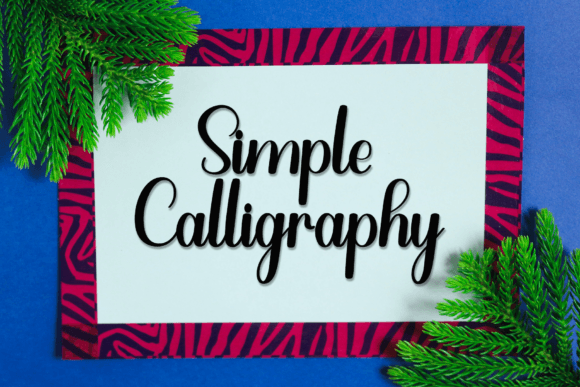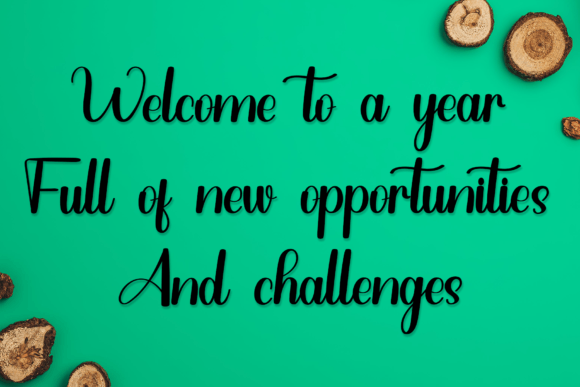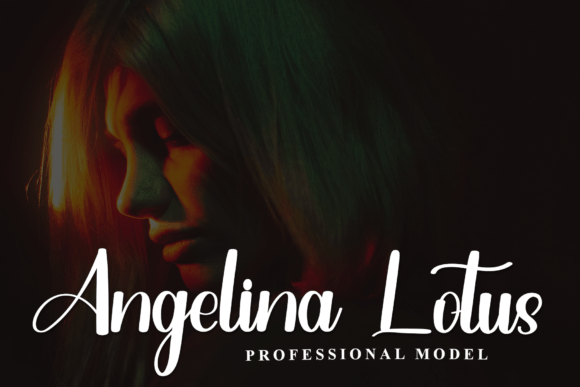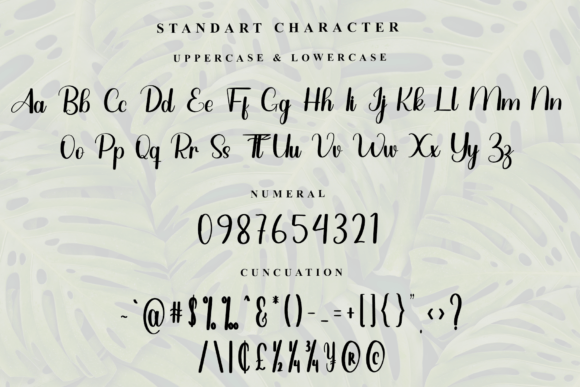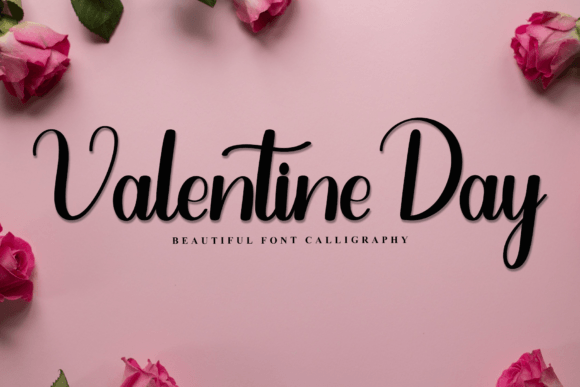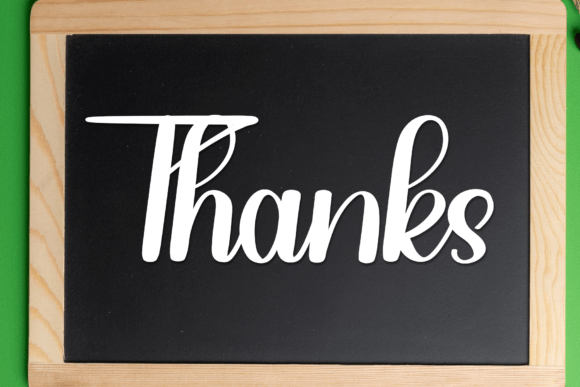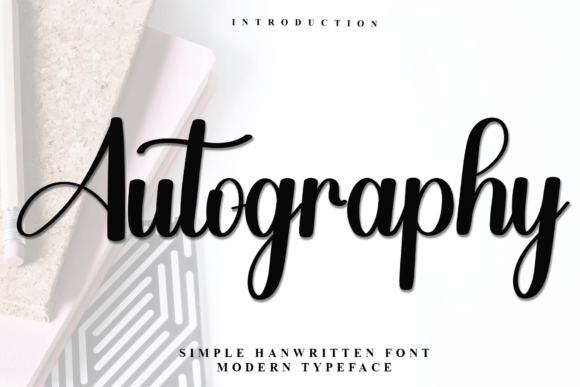
Introducing Autography Font: The Perfect Holiday Companion for Designers and Crafters
The holiday season is upon us, and with it comes the joy of creating festive and merry designs. Whether you’re a designer, crafter, or DIY enthusiast, you know how important it is to have the right typography to convey the spirit of the season. That’s where Autography Font comes in – a delightful and charming typeface that’s sure to add a touch of magic to your holiday projects.
What is Autography Font?
Autography Font is a carefully crafted typeface that’s designed to capture the essence of the holiday season. With its decorative elements and unique flair, this font is perfect for creating festive and fun designs that are sure to put a smile on anyone’s face. Whether you’re working on greeting cards, gift labels, or holiday-themed projects, Autography Font is the perfect companion to help you spread cheer and joy.
Key Features of Autography Font
- Festive and Happy: Autography Font is designed to evoke the spirit of the holiday season, with a playful and cheerful vibe that’s sure to delight.
- Decorative Elements: This font features beautiful decorative elements that add a touch of charm and whimsy to your designs.
- Unique Flair: Autography Font has a distinctive style that’s sure to make your designs stand out from the crowd.
- PUA Coded: This font is PUA coded, which means you can easily access all the amazing glyphs and ligatures to take your designs to the next level.
Autography Font is a versatile typeface that’s perfect for designers and crafters alike. Whether you’re creating professional designs or working on personal projects, this font is sure to inspire your creativity and help you produce stunning results. Here are just a few ways you can use Autography Font:
- Greeting Cards: Create festive and fun greeting cards for the holiday season, complete with decorative elements and a personal touch.
- Gift Labels: Add a touch of charm to your gift labels with Autography Font, perfect for presents, gift tags, and more.
- Holiday-themed Projects: Use Autography Font to create stunning holiday-themed projects, such as party invitations, decorations, and more.
Why Choose Autography Font?
With so many fonts to choose from, why should you choose Autography Font? Here are just a few reasons why this font stands out from the crowd:
- Unique Style: Autography Font has a distinctive style that’s sure to make your designs stand out.
- Ease of Use: This font is PUA coded, making it easy to access all the glyphs and ligatures you need.
- Festive and Fun: Autography Font is designed to evoke the spirit of the holiday season, making it perfect for festive and fun designs.
Get Creative with Autography Font
In conclusion, Autography Font is a must-have typeface for designers and crafters who want to add a touch of charm and whimsy to their holiday designs. With its decorative elements, unique flair, and PUA coding, this font is perfect for creating festive and fun designs that are sure to spread cheer and joy. So don’t miss out – get your hands on Autography Font today and make this holiday season one to remember!